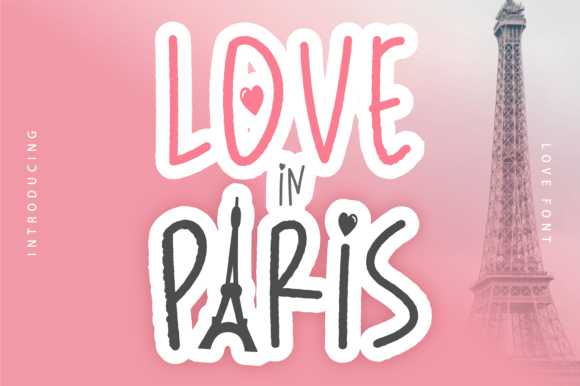
Introducing Love in Paris, a spellbinding display font that embodies the essence of love, perfect for captivating projects. Inspired by the City of Love, this font exudes a timeless elegance that will leave your audience smitten.
Step into a world of romance and creativity, where Love in Paris dances across your designs, conveying heartfelt messages and stirring emotions. Whether you're crafting wedding invitations that whisper sweet promises or designing posters that evoke the magic of Paris, this font is your artistic muse.
With Love in Paris, you'll find a treasure trove of carefully crafted characters, each adorned with intricate details that reflect the beauty of the season of love. From delicate hearts to elegant swashes, this font is a visual symphony that will leave you breathless.
Unleash your creativity and let Love in Paris ignite your imagination. Whether you're a seasoned designer or just starting your creative journey, this font is your passport to a world of endless possibilities.
Embrace the allure of Love in Paris and let your designs blossom with charm and sophistication. Its PUA encoding ensures effortless access to all glyphs and swashes, making it a breeze to add a touch of enchantment to your projects.